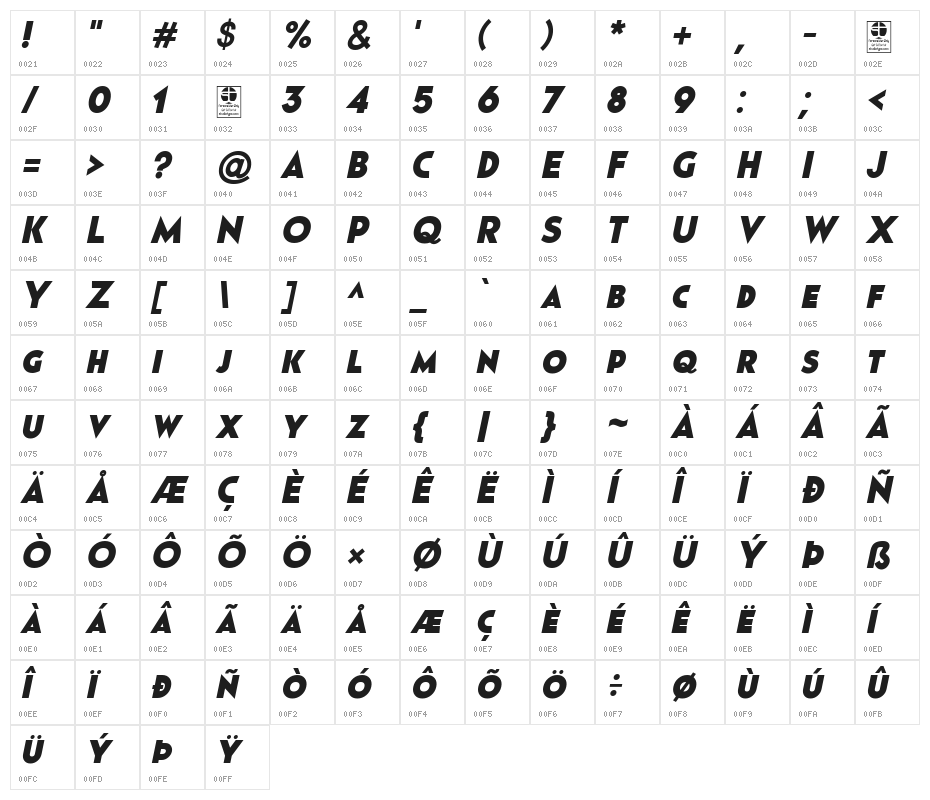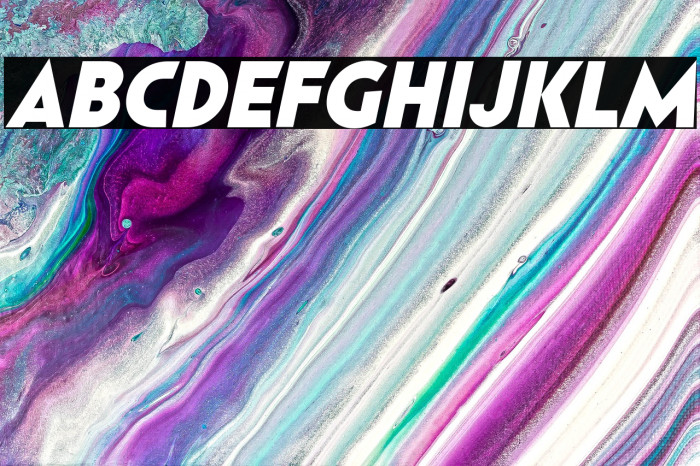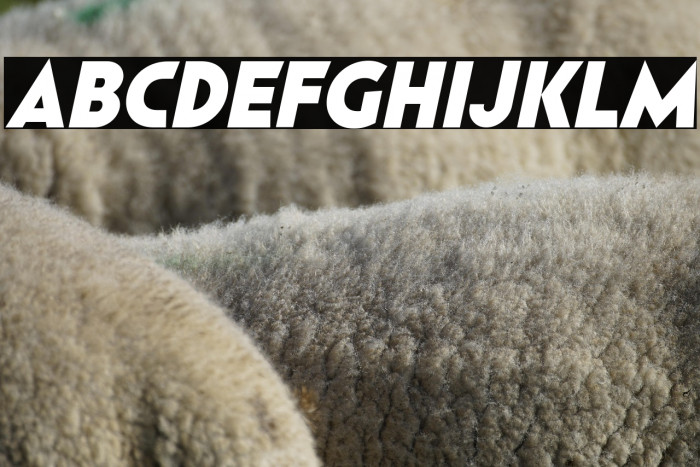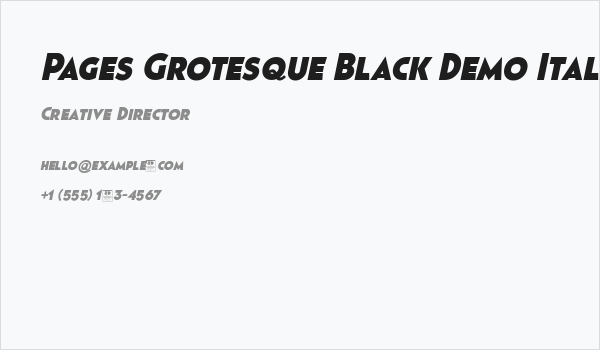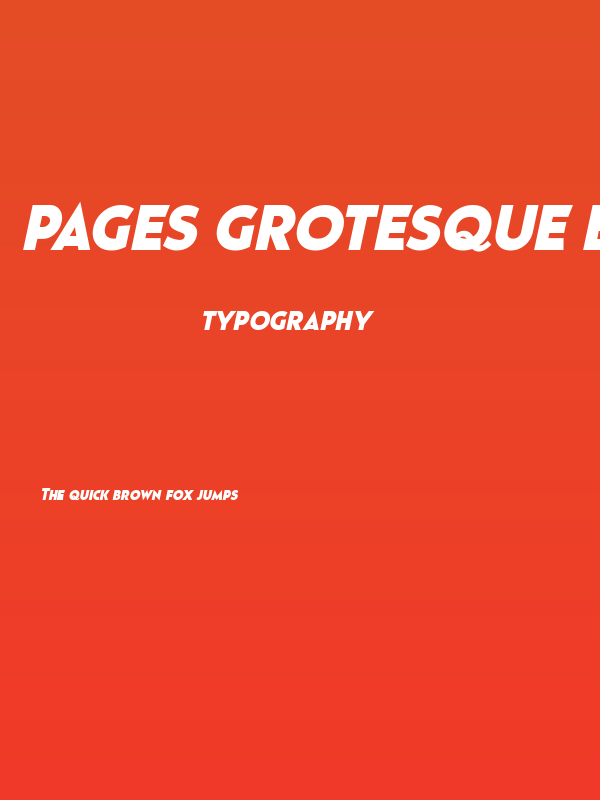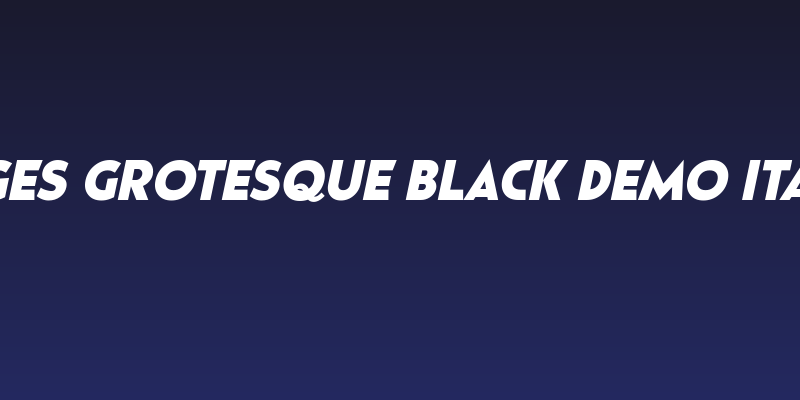
Pages Grotesque Black Demo Italic Font
Pages Grotesque Black Demo Italic Description
This font exhibits a bold and dynamic style with strong geometric shapes and a slanted, italicized form. The uppercase letters are robust and commanding, with a consistent stroke width that conveys a sense of stability and strength. The lowercase letters maintain the same boldness, ensuring readability and impact. Numbers are equally bold and clear, making them suitable for attention-grabbing displays. The special characters are crafted with the same boldness, ensuring uniformity across all glyphs. The italic slant adds a sense of motion and modernity, making it ideal for contemporary designs.